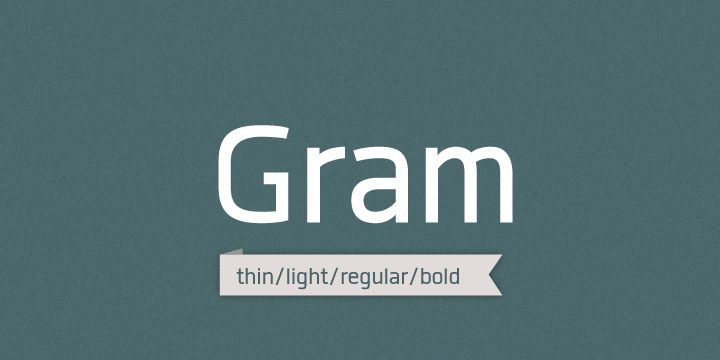
Gram Font is perfect for various applications including social media platform branding, instant messaging interfaces, digital communication apps, modern tech startup logos, minimalist web designs, contemporary mobile applications, streamlined user interfaces, clean marketing materials, social networking graphics, and efficient digital communication tools.
What makes Gram Font so exciting is its exceptional ability to facilitate clear, instant communication through optimized typography that enhances digital readability and user experience. This contemporary typeface features clean, efficient letterforms with digital proportions and communication-focused details that capture the essence of modern connectivity and streamlined information sharing. The font's communicative character and digital-first aesthetic make it ideal for brands that want to convey clarity, efficiency, and modern connectivity to audiences who live in the digital communication age and value instant, clear messaging.
Gram Font family includes multiple weights and styles: Thin, Light, Regular, Medium, Bold, Black, Condensed, Extended, and digitally optimized Italic variants. Each family member maintains the font's signature communication efficiency while offering different levels of visual impact and stylistic flexibility for diverse digital and communication applications.
The Gram Font Free Download provides designers with access to a communication-focused typeface that excels in digital and technology markets. Whether you're creating messaging platform identities, designing social media interfaces, or developing streamlined digital experiences, this font delivers the clear aesthetic needed to enhance user communication and digital interaction. Its digital styling and communication essence make it particularly effective for social media companies, messaging apps, and digital communication platforms.
Typography specialists will appreciate the digital optimization and communication clarity in Gram Font's construction. The font features precisely engineered letterforms with digital proportions, optimized spacing for screen readability, and carefully calibrated details that ensure excellent legibility across all devices while maintaining its communicative character. From mobile app interfaces to social media graphics, this typeface maintains its clarity and digital appeal across all communication contexts.
For digital web designers, Gram Font provides outstanding performance in communication-focused digital environments and social platforms. The font's technical specifications are optimized for various screen sizes and digital devices while preserving the clean, efficient edges that define its communication character. Its versatility makes it suitable for both static digital content and dynamic interactive communication experiences.
Creative professionals working in social media, digital communication, mobile app development, and tech startups will find Gram Font to be an essential tool for projects requiring clear visual communication. The font's ability to convey efficiency, clarity, and modern connectivity makes it invaluable for brands targeting digital natives and communication-focused demographics.
Design agencies specializing in digital and communication brands appreciate Gram Font's versatility in creating memorable efficient identities.